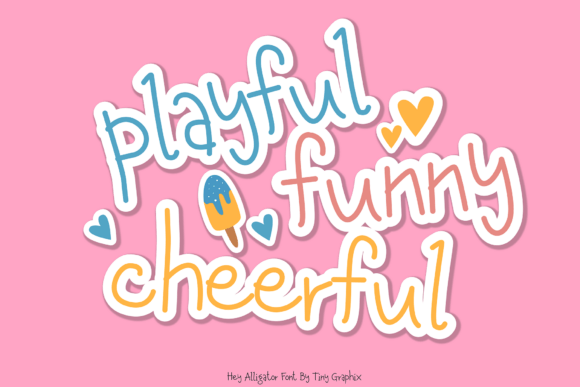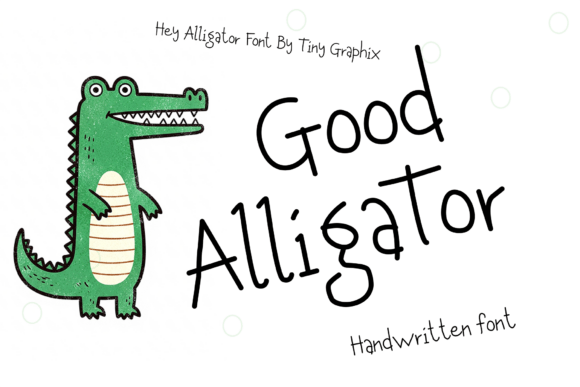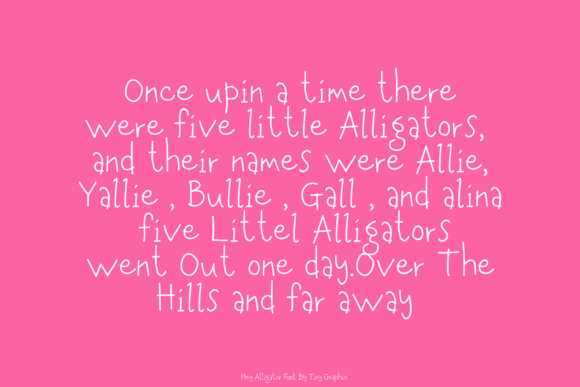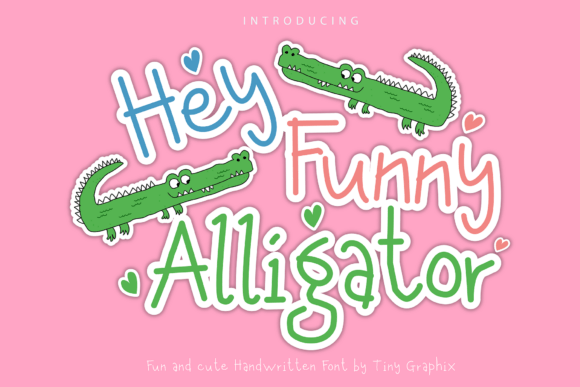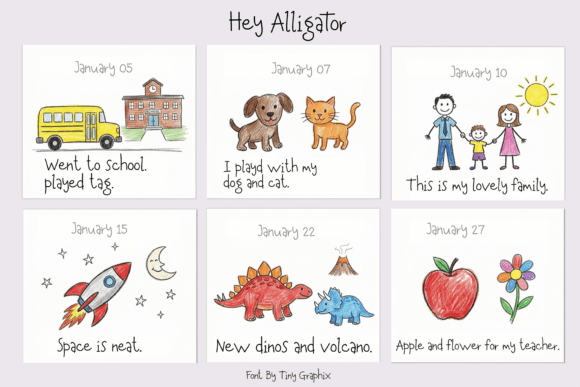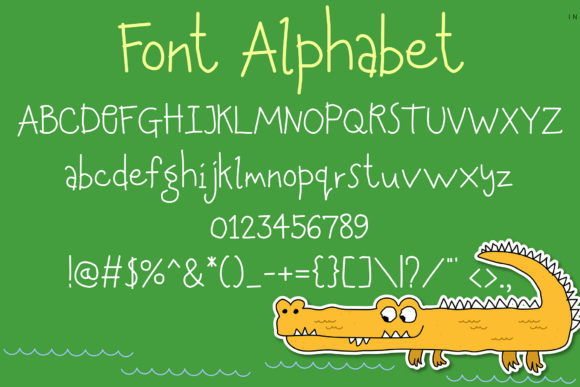
Introduction to Hey Alligator Font
Hey Alligator – A Playful & Cute Handwritten Font Bring a touch of whimsy and childhood joy to your next project with Hey Alligator.
This charming, tall, and skinny handwritten font was designed with a “playful schoolhouse” aesthetic in mind Its clean lines and legible characters make it an absolute must-have for educators, parents, and crafters alike.
Key Features of Hey Alligator Font
Why Choose Hey Alligator Font?
Hey Alligator Font offers exceptional quality and versatility, making it a valuable addition to your design toolkit. Whether you’re creating for personal projects or commercial use, Hey Alligator Font delivers professional results.